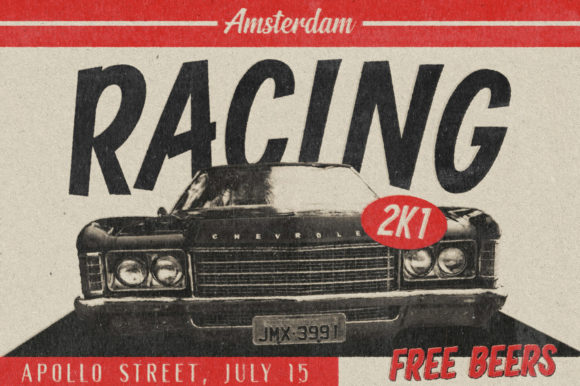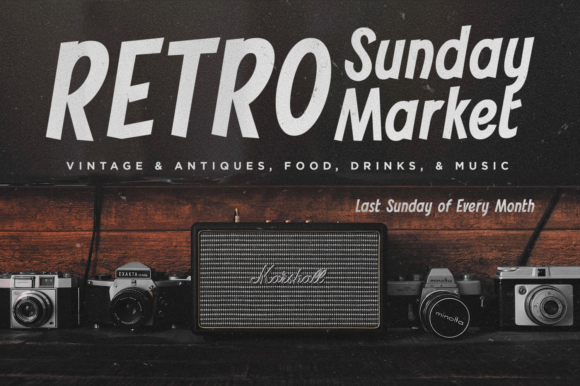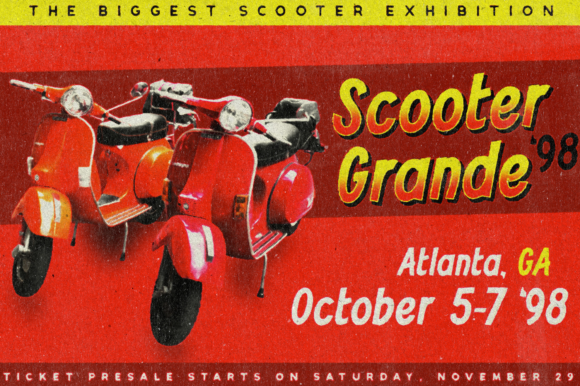
Introduction to Kehlin Font
Enter the Kehlin Font, a modern display font that’s as stylish as it is readable. Its smooth curves and bold aesthetic make it the perfect addition to any creative project, whether you’re working on a fashion branding project or an editorial design. With the Kehlin Font, you can elevate your designs to the next level, and with its high-quality design, you can trust that your work will stand out.
Key Features of Kehlin Font
- High-quality design resource suitable for various creative projects, including digital art and graphic design.
- Unique, modern design with a transparent background, making it easy to overlay on images or other design elements.
- Supports various font sizes and resolutions, ensuring crisp and clear display on high-resolution screens.
- Designed to be highly legible, making it an ideal choice for body text and headings in creative projects.
Honest Review: Kehlin Font
I recently had the chance to work with the Kehlin Font, and I must say, it’s a great addition to any designer’s toolkit. The font is available for free download, making it a fantastic resource for anyone looking to add a touch of elegance to their creative project.
One of the things that really stands out about the Kehlin Font is its high quality. The letters are clean and crisp, with a transparent background that makes them easy to overlay on top of other design elements. The font is also incredibly versatile, making it perfect for a wide range of design projects.
Here are some things that I really like about the Kehlin Font:
- ✨ Clean and elegant design
- ✨ High quality typography
- ✨ Transparent background for easy overlaying
Of course, no font is perfect, and the Kehlin Font has a few limitations:
- ⚠️ Limited font styles available
- ⚠️ May not be suitable for very large or complex designs
Overall, I’m really impressed with the Kehlin Font. It’s a great resource for any designer looking to add a touch of sophistication to their creative project. I highly recommend giving it a try!
Tips for Getting the Most Out of Kehlin Font
For the best results, use the Kehlin Font with a high-quality design resource, such as a high-resolution image or a custom background. Experiment with different font sizes, styles, and colors to create a unique and creative design.
The Kehlin Font is ideal for a variety of creative projects, including social media graphics, presentations, posters, and business cards. Its high-quality design makes it perfect for professional and personal use.